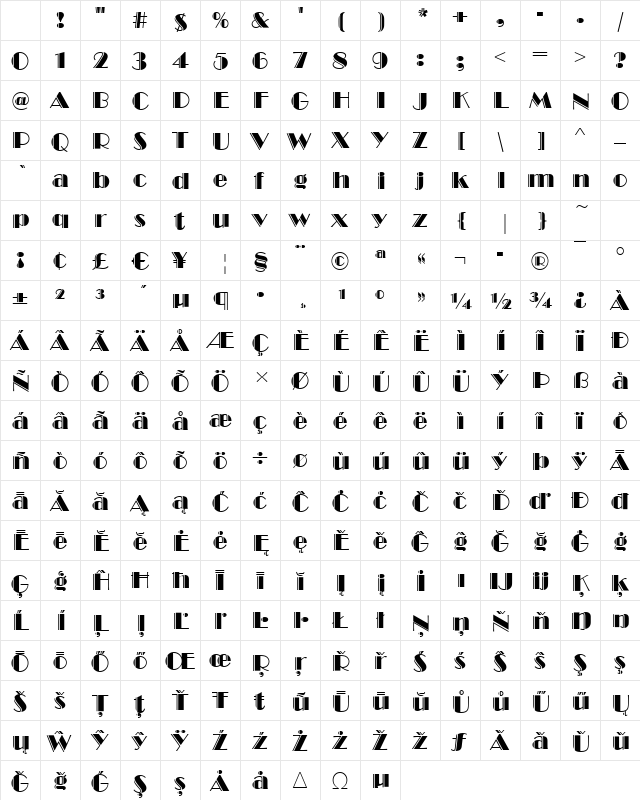
Complete Broadway-Engraved Regular glyph index. Displaying only characters natively supported by Broadway-Engraved Regular font.
Broadway-Engraved is built around its visual character rather than neutral utility - its distinctive forms are designed to make an impression at display sizes.
Font Pairing: Pair with a clean neutral sans-serif for body copy to let Broadway-Engraved's character lead without overwhelming the composition.
Pro Tip: Use Broadway-Engraved exclusively at display sizes - it was designed to be seen, not read at length. Let a neutral companion handle body copy.